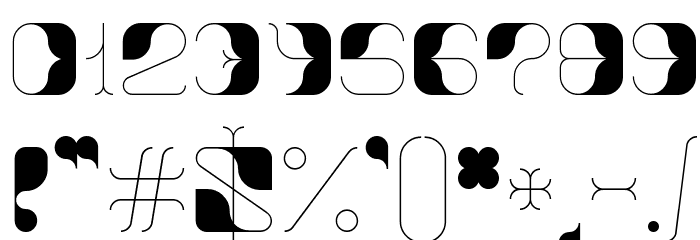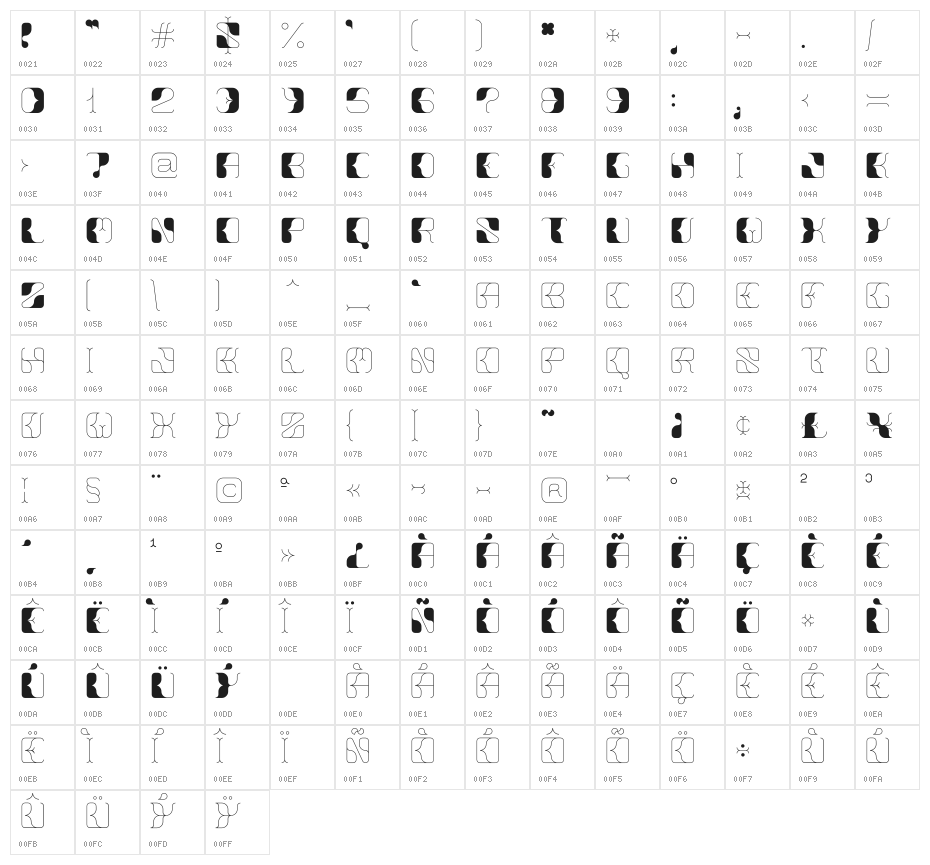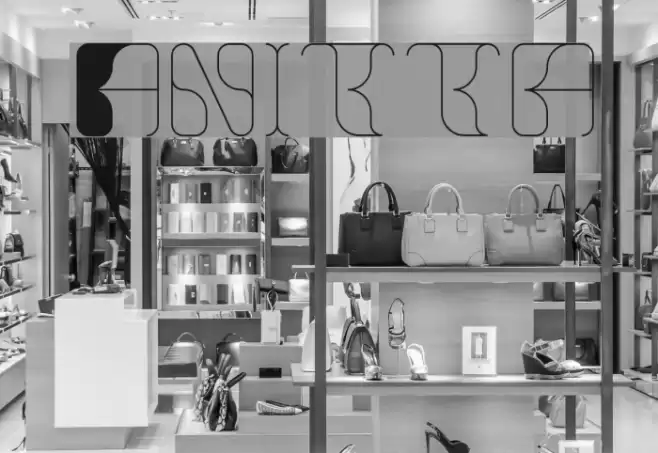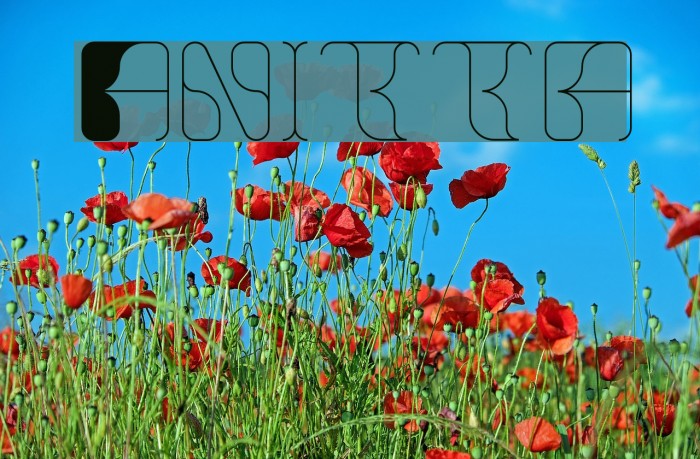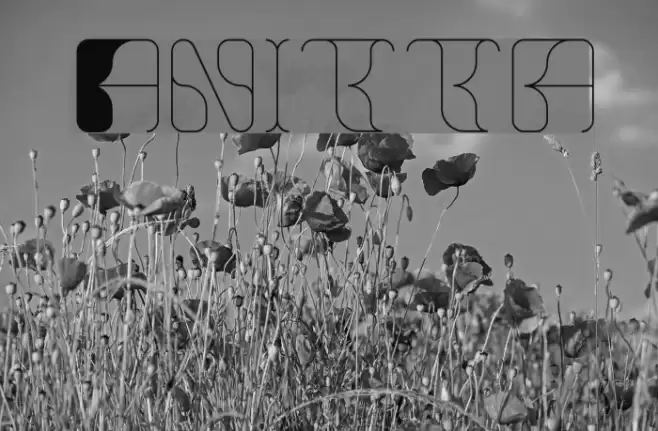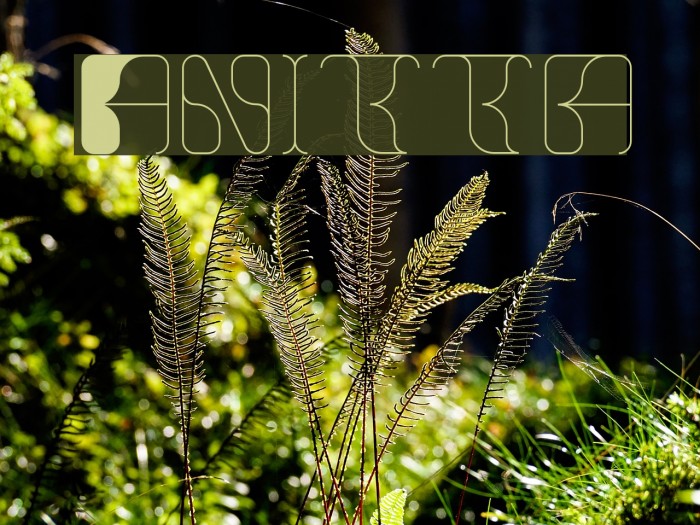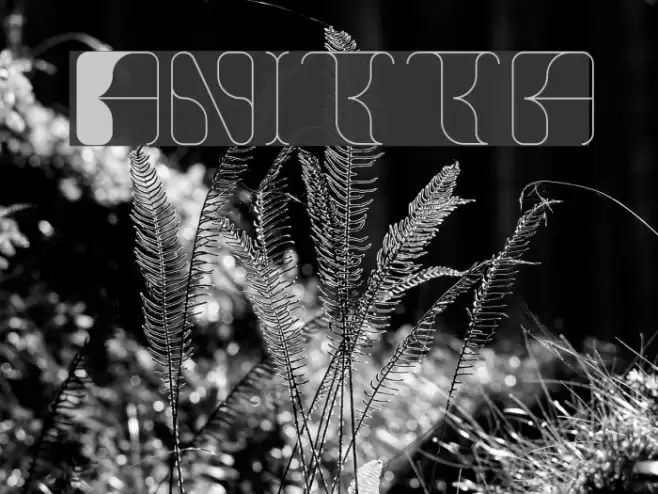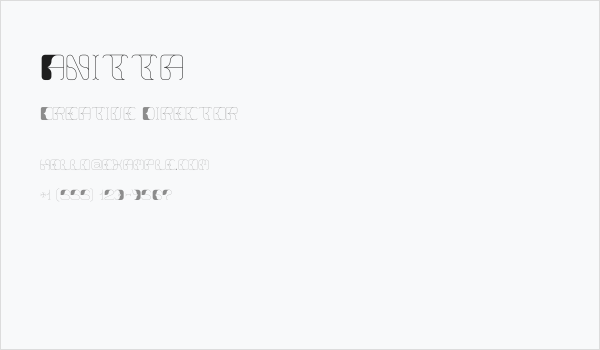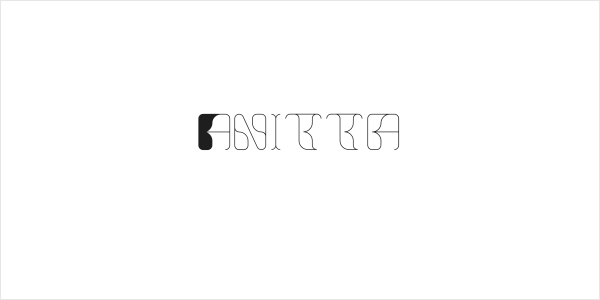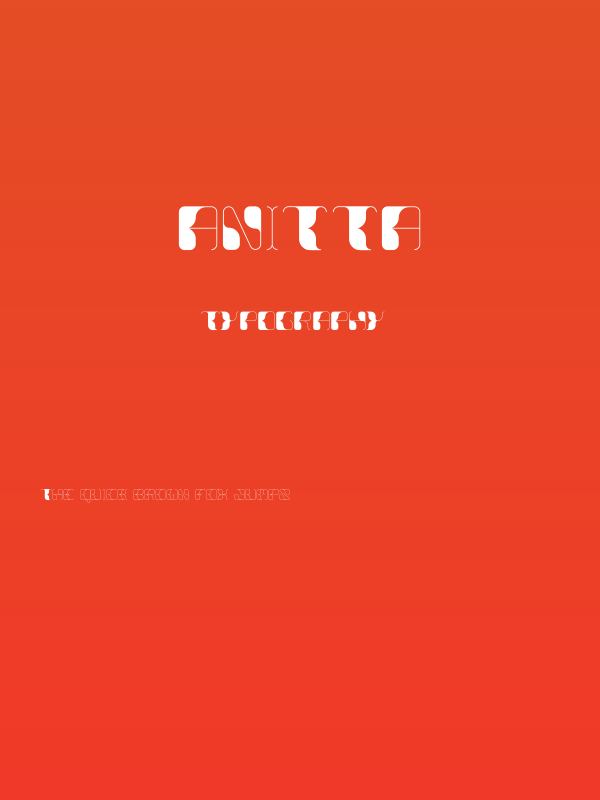
Anitta Font
Anitta Description
This font features a highly decorative and abstract design, characterized by its unique interplay of solid and outlined forms. The uppercase and lowercase letters exhibit a striking contrast between thick, bold strokes and thin, delicate lines, creating a dynamic visual rhythm. The numerals and special characters follow the same aesthetic, with some characters appearing almost like abstract art pieces. The overall design is modern and avant-garde, making it a standout choice for projects that require a bold and artistic touch.
| Use Case | Headlines, Logos, Artistic projects |
| Proposed Projects | Ideal for artistic posters, album covers, avant-garde branding, and creative digital media. |